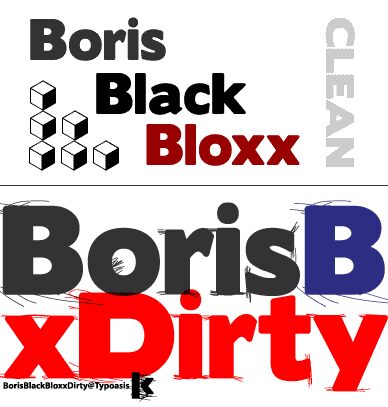
BorisBlackBloxxDirty
Boris Black Bloxx Dirty font by Manfred Klein is a free distorted display typeface. Punched out of solid black blocks, its letters feel heavy and industrial, then get undercut by rough, scratched shadows that drag along the baseline like scuff marks on concrete. Part of the Boris Black Bloxx family, this version twists the sturdy shapes into something grimy and loud, giving you instant attitude without sacrificing legibility.
Using Boris Black Bloxx Dirty, your work hits that sweet spot between bold and battered—great for gig posters, album art, skate or streetwear branding, zines, YouTube thumbnails, and bold website banners. The chunky weight makes short words slam off the page, so keep it big and brief. Pair this free font with a clean, light sans serif for smaller text to let its gritty texture take center stage.